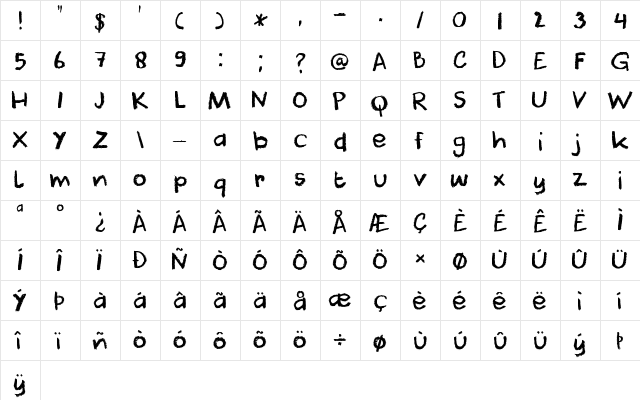
DK Cool Crayon Regular
| Foundry | David Kerkhoff |
| Designer | David Kerkhoff |
Design Context for DK Cool Crayon Typeface
DK Cool Crayon is a composed and adaptable typeface that performs quietly and consistently across a wide range of design contexts.